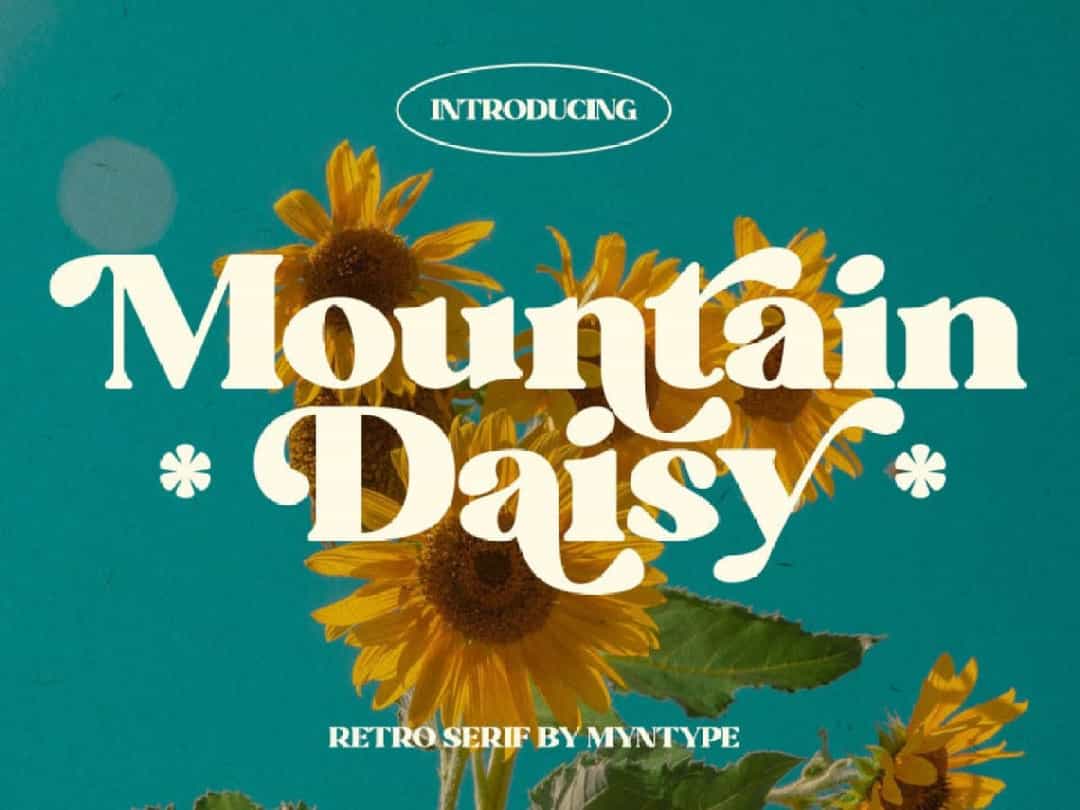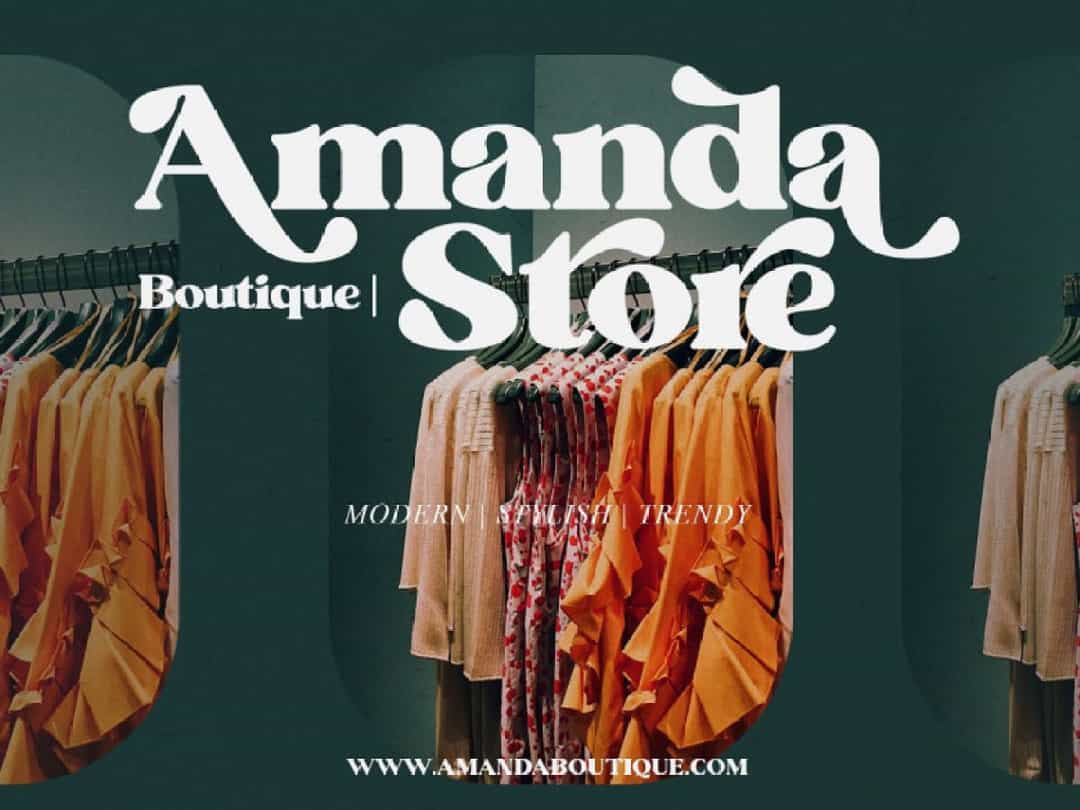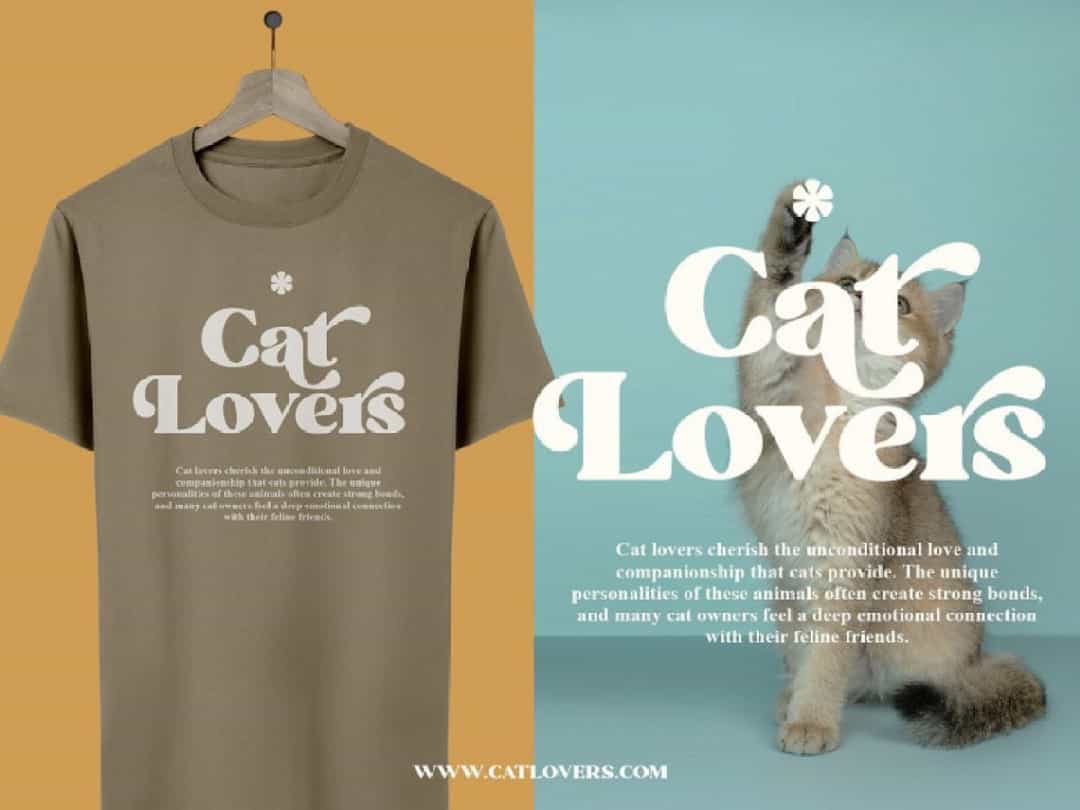
Mountain Daisy is a retro serif font inspired by early 20th-century typographic styles. The font features decorative uppercase letters, lowercase letters and ligatures to add character and individuality to its style – perfect for titles, logos packaging headings quotes or any design that requires individuality! It would make an excellent addition to any unique project!